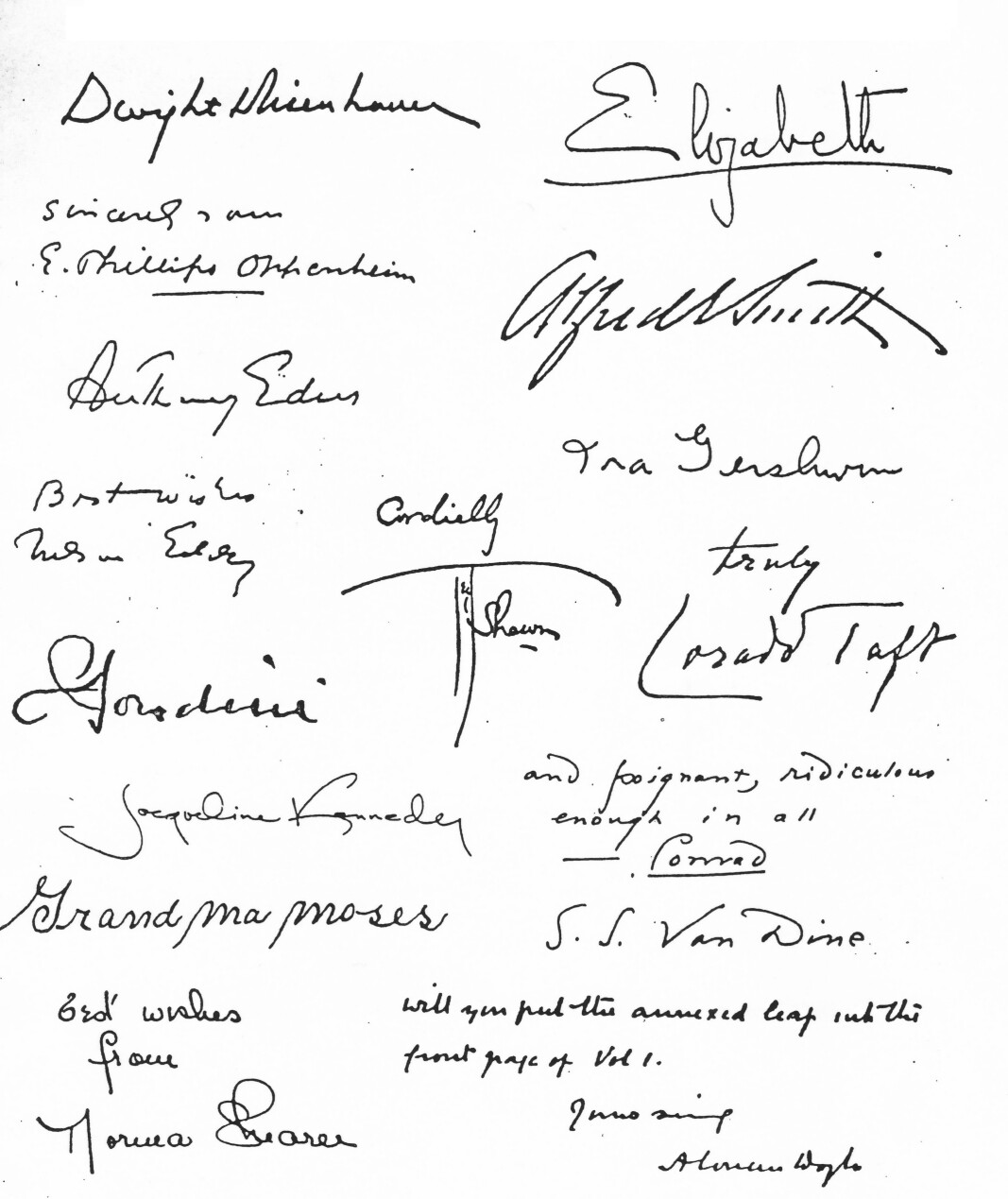
As with everyone else, my handwriting changes as I get excited, sick, happy, sad . . .
What was John Hancock thinking when he wrote his name so boldly long ago?
Do people who think highly of themselves tend to write in huge swoops while lesser mortals crimp in small script?
Mind/hand interactions have made for interesting and artistic designs for those of us interested in making fonts, regardless of whether or not they reveal our inner most guarded secrets.
So many fonts yet to be created!